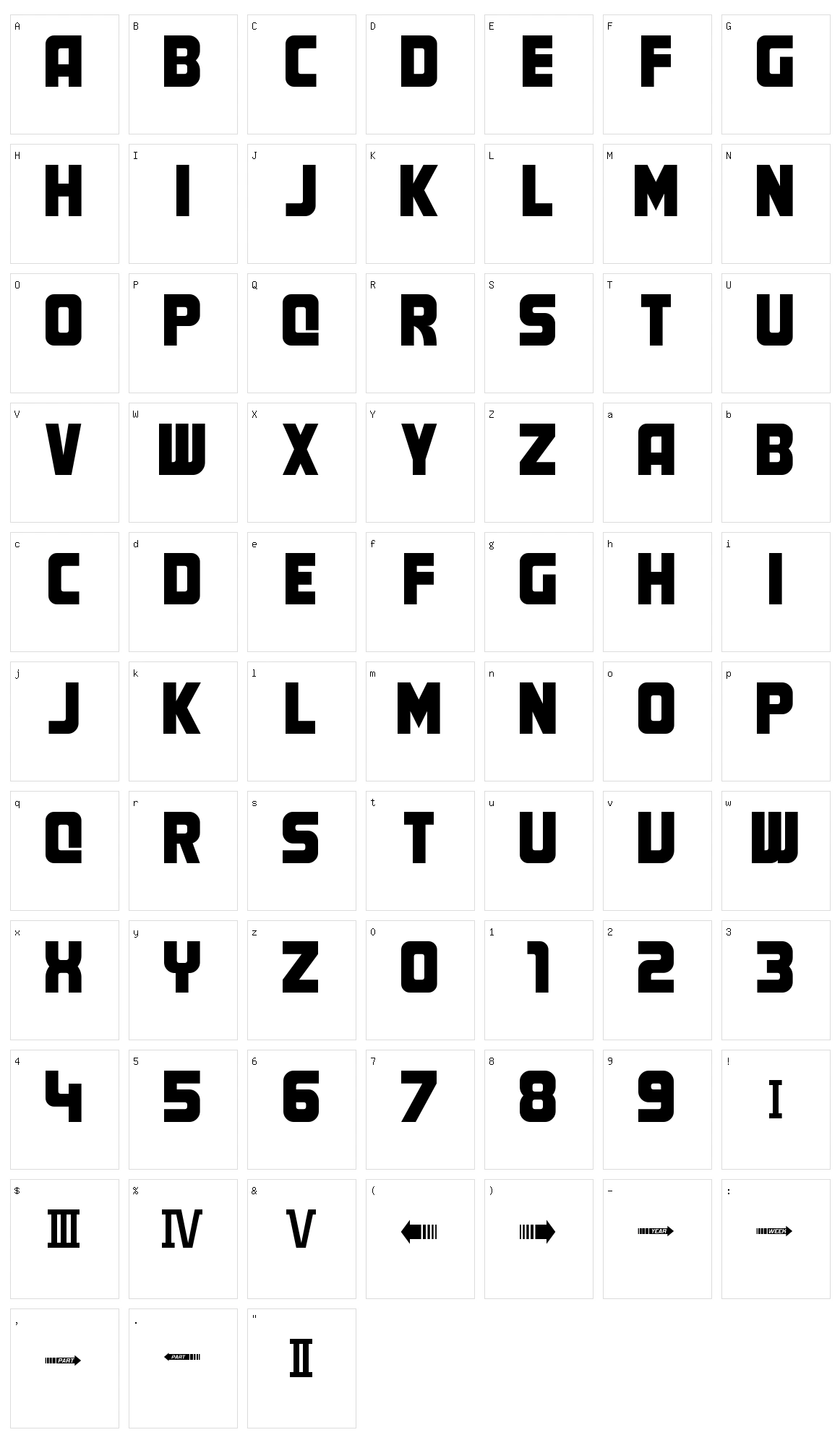
Hi Back to the Future fans,
with the help of my Marty font you can create a logo like the one attached. The font and the logo are created with CorelDraw.